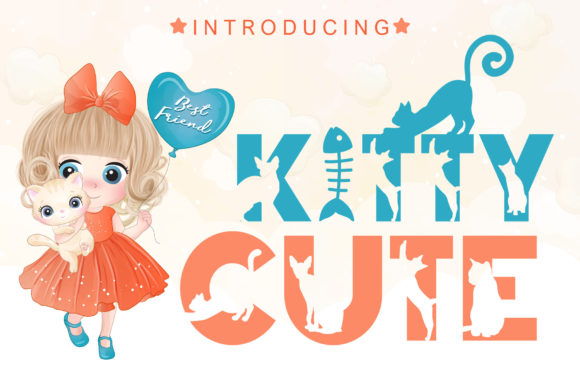
Welcome to the world of Kitty Cute Font, a decorative font that oozes charm and playfulness. Designed by the talented Fox7, this font is a true delight, guaranteed to bring a smile to your face. With its whimsical and endearing style, Kitty Cute Font is the purrfect choice for adding a touch of magic to your creative projects.
Step into a world of enchantment where your words dance and twirl with Kitty Cute Font. Each letter is a work of art, meticulously crafted to exude joy and whimsy. Let your imagination soar as you unleash the boundless possibilities of this captivating font.
Whether you're crafting handmade cards, designing eye-catching social media posts, or creating stunning presentations, Kitty Cute Font will elevate your work to new heights. Its versatility knows no bounds, making it the perfect companion for any creative endeavor.
Picture this: a beautifully handwritten letter adorned with the charm of Kitty Cute Font, carrying your heartfelt words to a loved one. Or envision your designs taking on a life of their own, bursting with personality and creativity, thanks to this remarkable font.
Kitty Cute Font is not just a font; it's an invitation to let your imagination run wild. It's a key that unlocks a world of endless possibilities, where every stroke of the pen or click of the mouse becomes a stroke of genius.